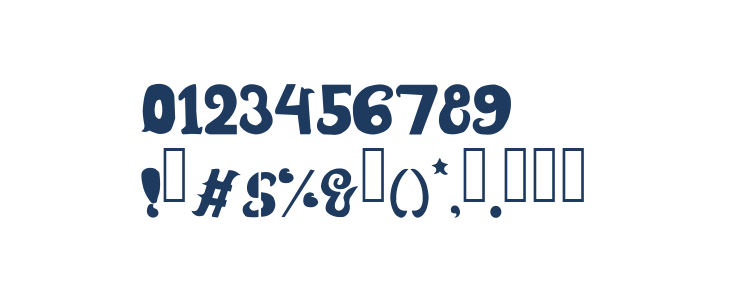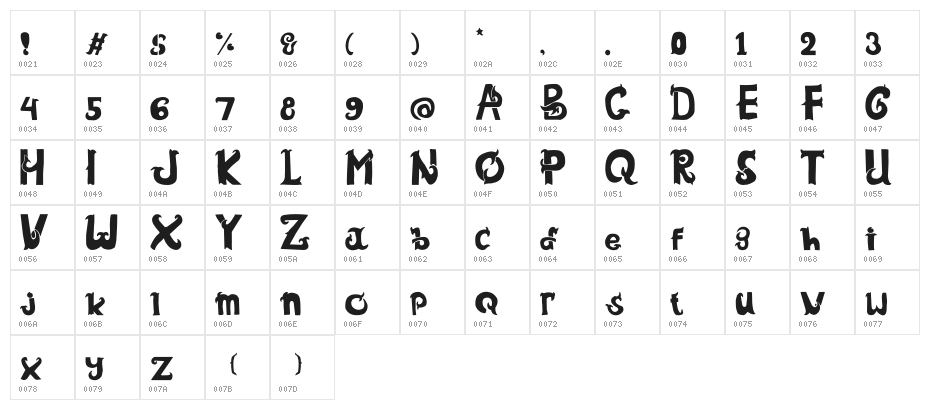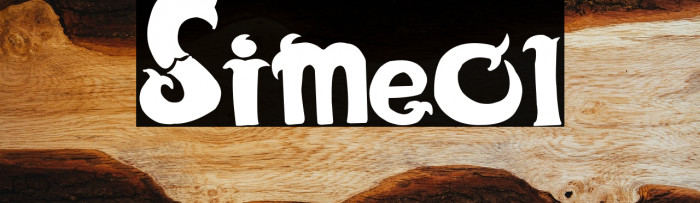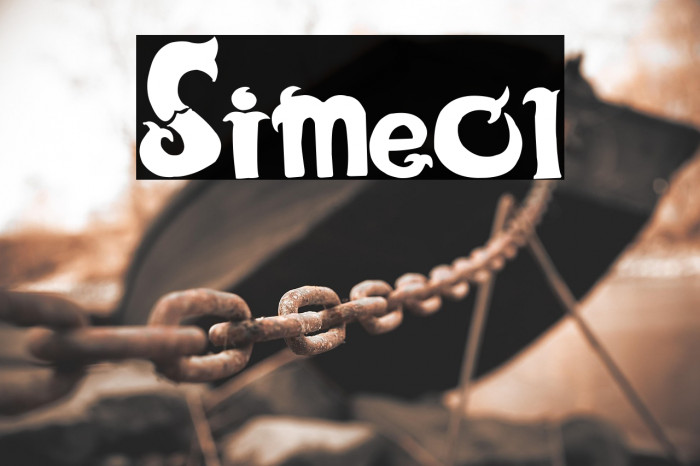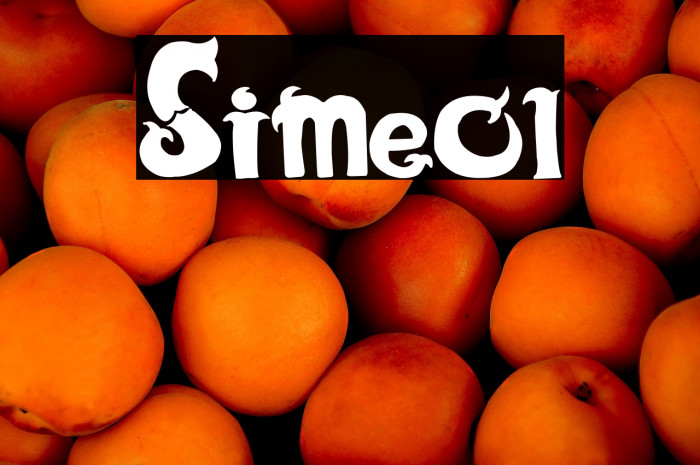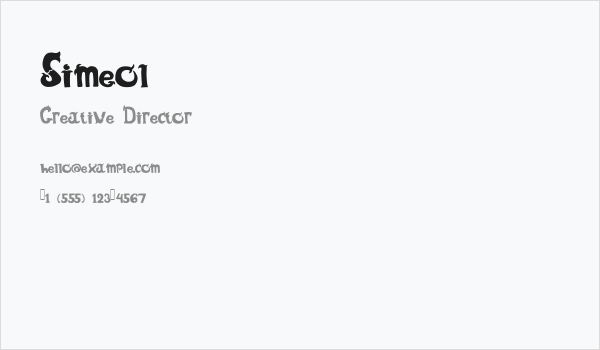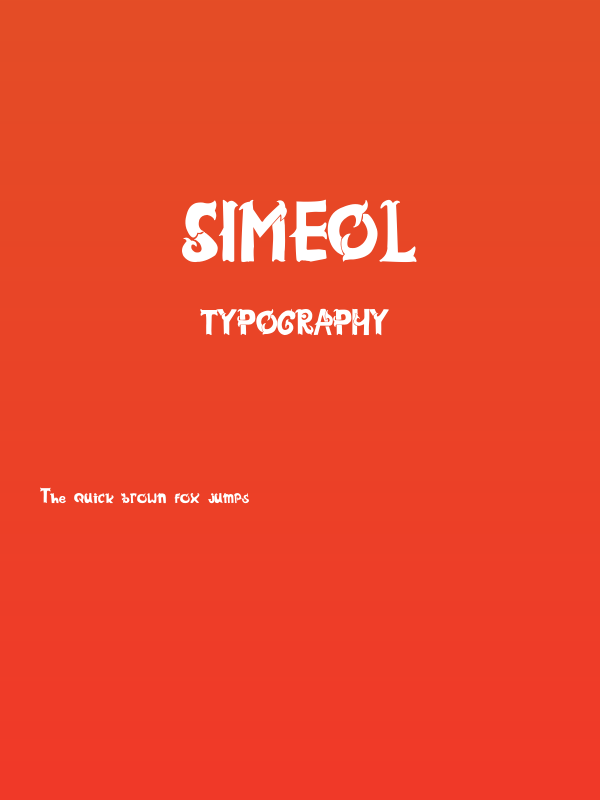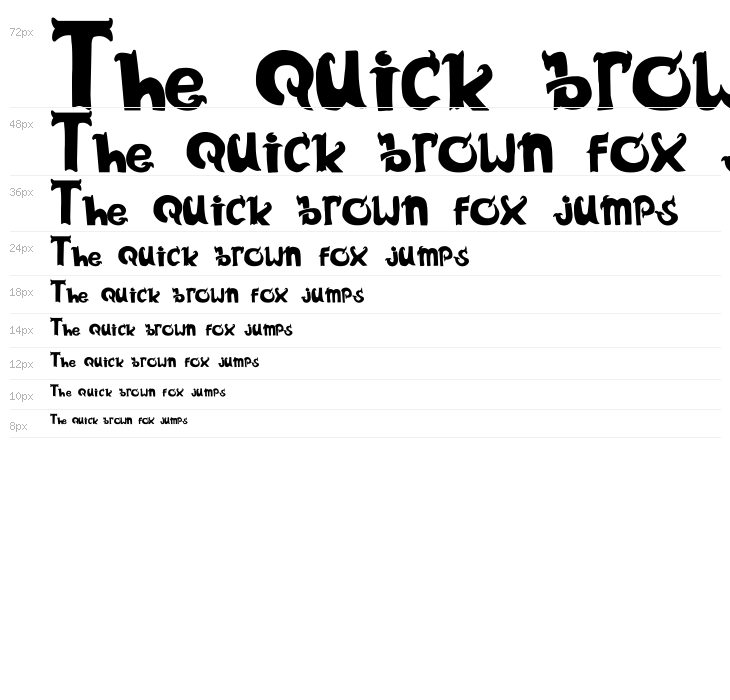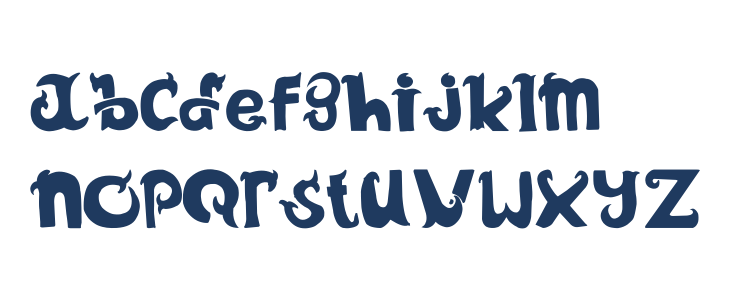
Simeol Font
Simeol Description
This font features a bold and playful design with a unique, whimsical flair. Each character is crafted with a combination of thick strokes and decorative elements, creating a lively and dynamic appearance. The uppercase and lowercase letters maintain a consistent style, with exaggerated curves and flourishes that add a sense of movement. Numbers and special characters follow the same playful theme, making the font suitable for creative and informal applications. The overall design is eye-catching and distinctive, perfect for projects that require a touch of fun and creativity.
A bold, playful font with whimsical, decorative elements from Decorative fonts.
- Font: Simeol
- Proposed Projects: Ideal for children's books, playful branding, party invitations, and creative posters.